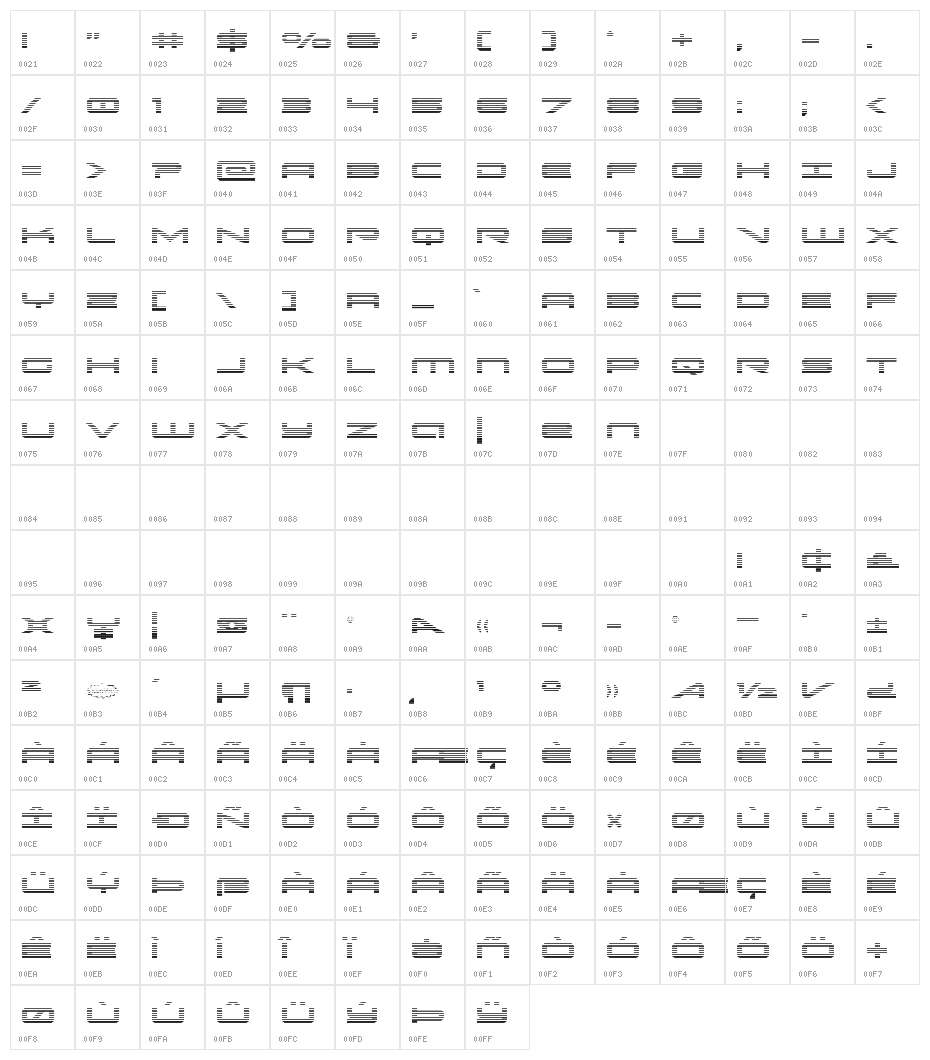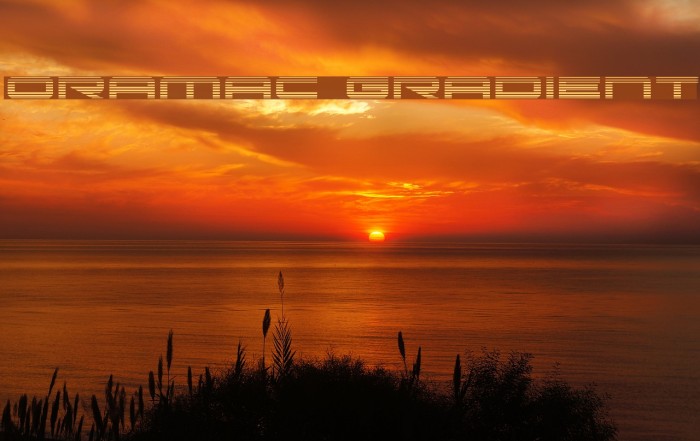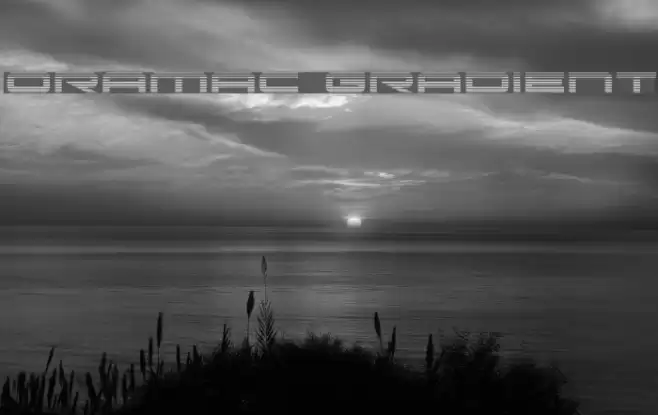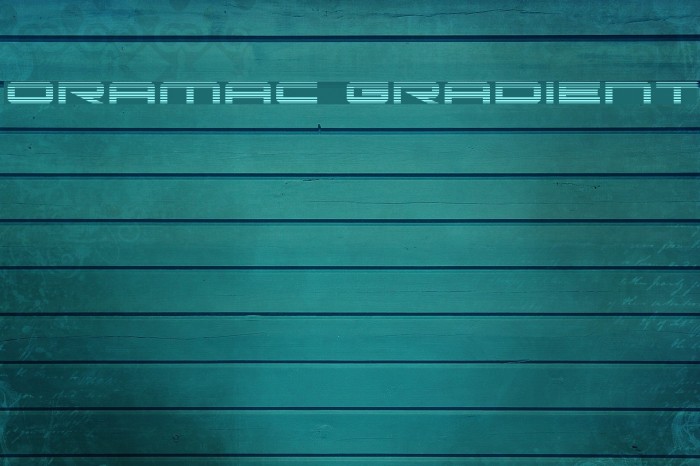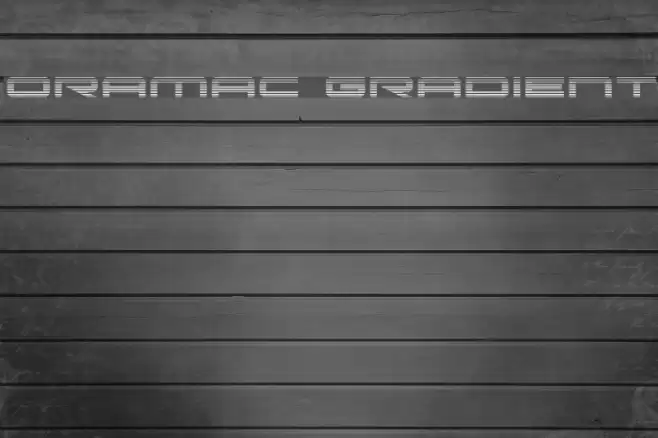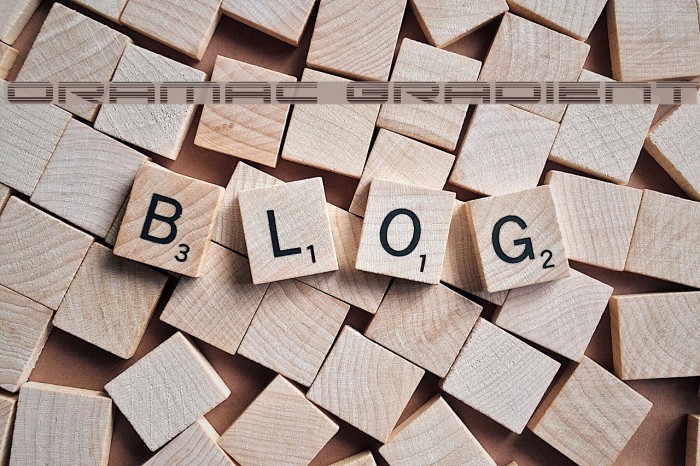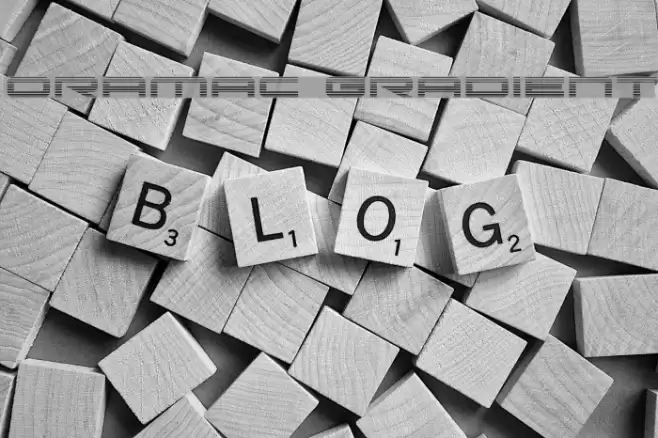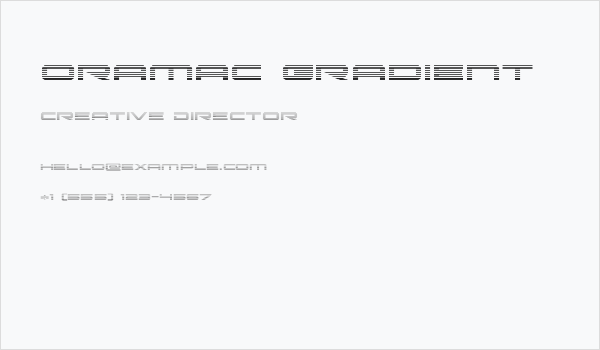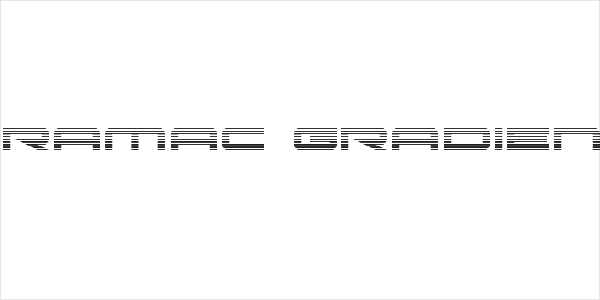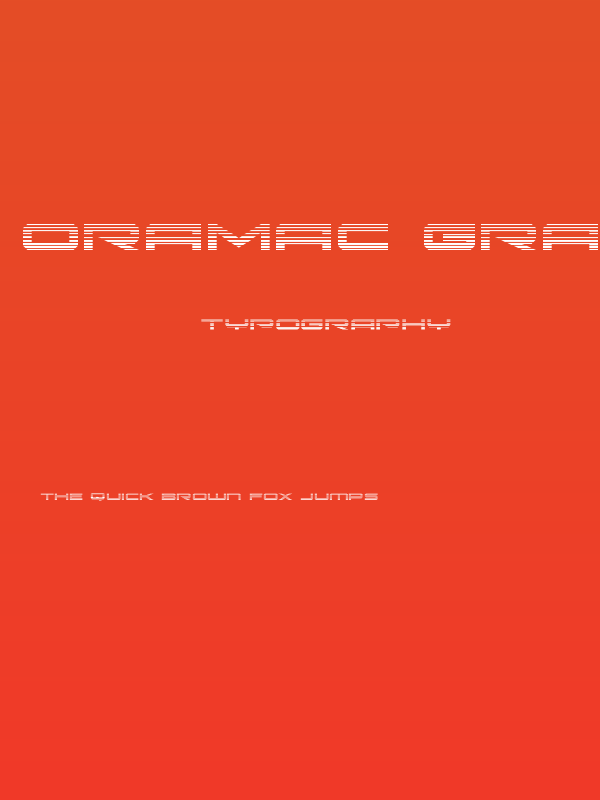
Oramac Gradient Font
Oramac Gradient Description
This font features a unique, futuristic design characterized by horizontal stripes that create a gradient effect across each character. The letters are constructed with a modern, geometric style, giving them a sleek and technological appearance. The consistent use of parallel lines within each character adds a sense of movement and dynamism. This font is highly stylized, making it ideal for projects that require a bold and innovative look. The uppercase and lowercase letters maintain a uniform width, contributing to a cohesive visual flow. The numerals and special characters are designed with the same striped pattern, ensuring a harmonious overall aesthetic.
| Proposed Projects | Ideal for tech-related branding, futuristic posters, video game graphics, and sci-fi themed designs. |